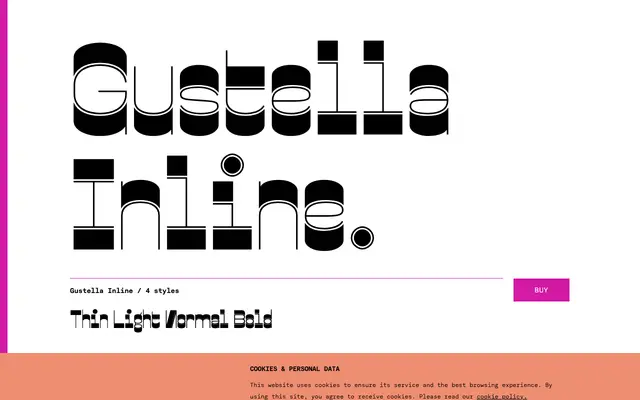
Gustella Inline
A reverse-contrast inline display face by Thomas Thiemich, part of the wider Gustella superfamily that draws on nineteenth-century Western wood type and Hippy-era lettering extremes.
One of four variants in the Gustella superfamily alongside Solid, Stripes and Boxed, the Inline cut applies an engraved channel to letters already defined by extreme stroke contrast. All four subfamilies share identical metrics, making overprinting a practical option for layered effects. Four weights from Thin to Bold come with extensive OpenType features including stylistic alternates, fractions, case-sensitive punctuation and full coverage of Latin-based Western, Central and East European languages.
Gustella Inline belongs to the reverse-contrast display tradition, with extreme stroke contrast derived from nineteenth-century slab and Western wood type, refined here with digital precision and an inline treatment.